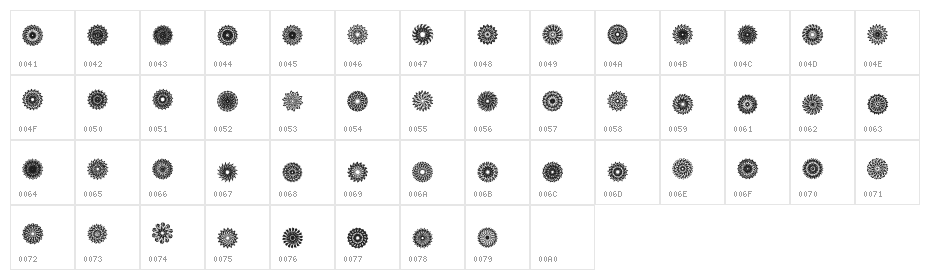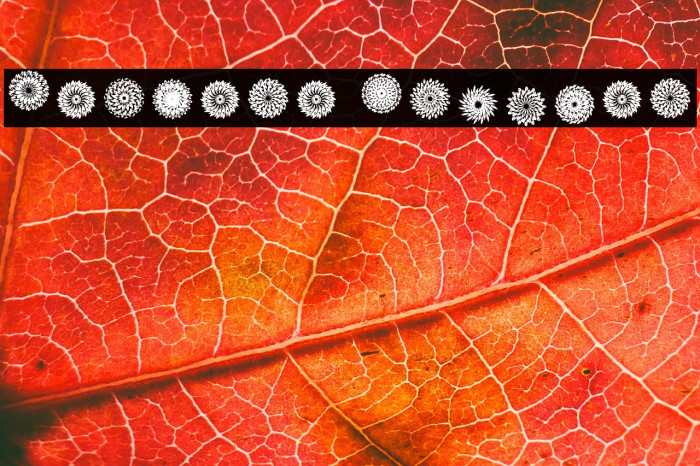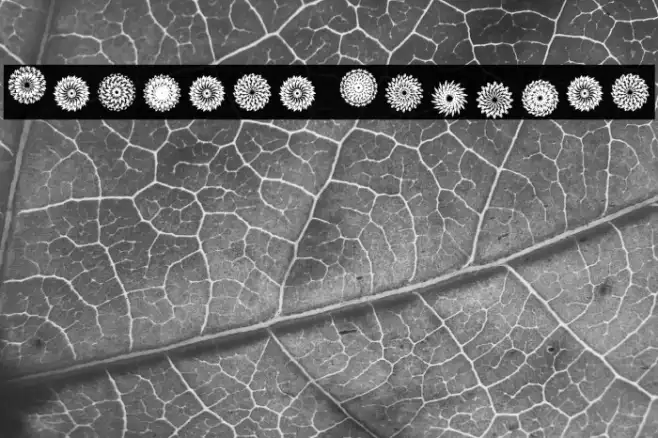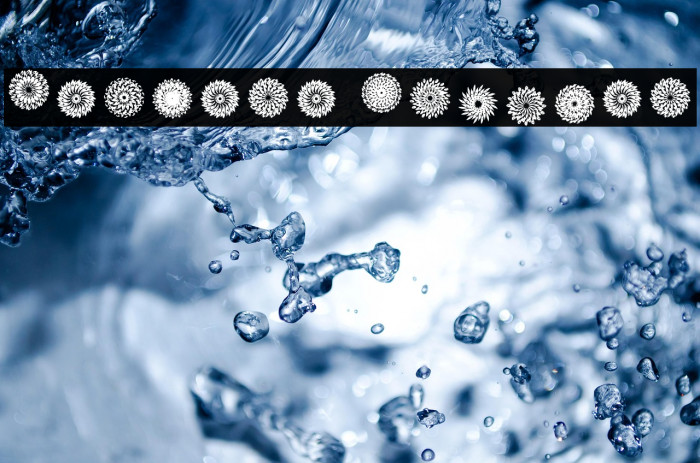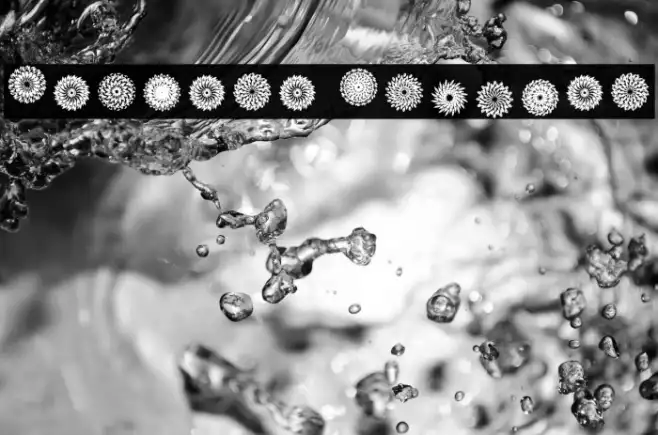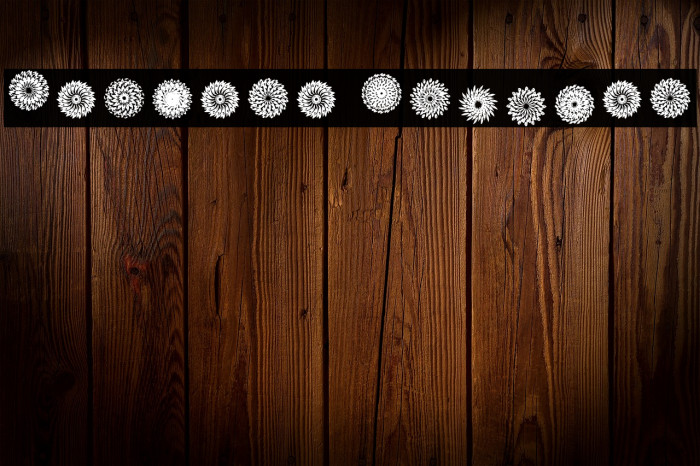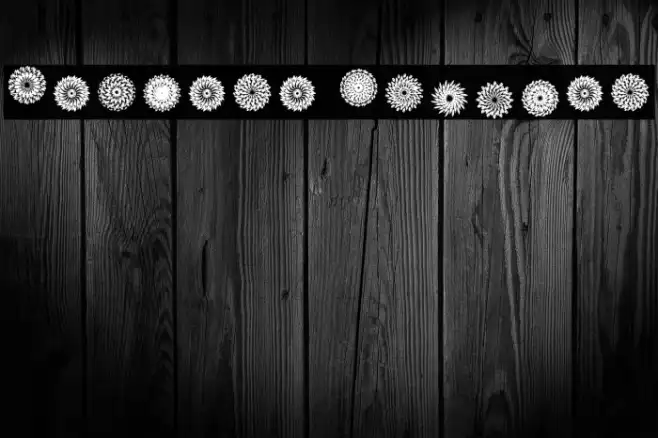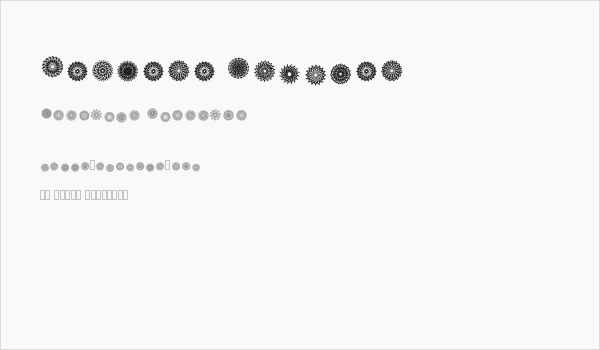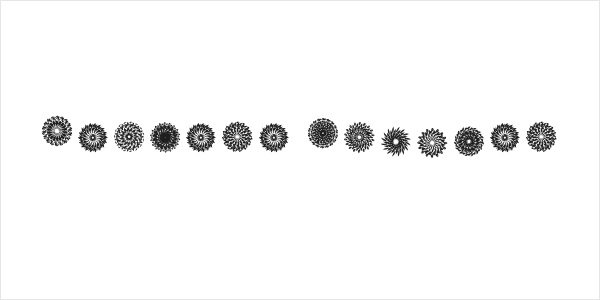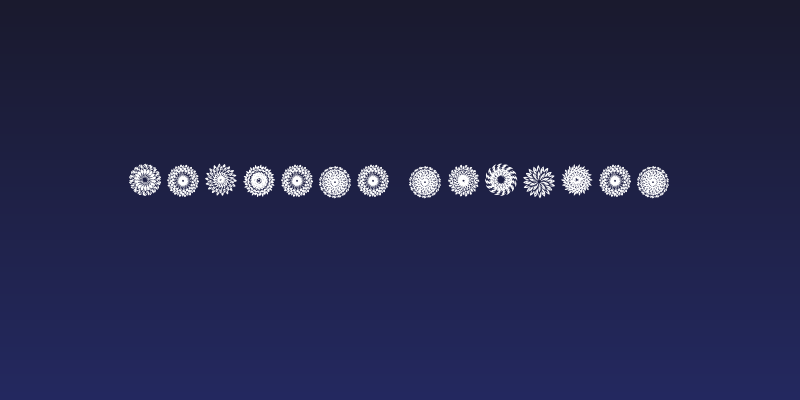
Mandara Regular Font
Mandara Regular Description
A decorative dingbat font featuring intricate mandala and floral-inspired circular ornaments, each glyph presenting a unique, detailed pattern. The designs are highly ornamental, with bold black fills and complex symmetrical arrangements, suitable for embellishment and artistic purposes.
| Overall Style | Decorative, Artistic, Ethnic |
| Use Case | Decorative elements, Borders, Icons, Logos |
| Proposed Projects | Invitations, greeting cards, decorative borders, scrapbooking, spiritual or wellness branding, art projects. |